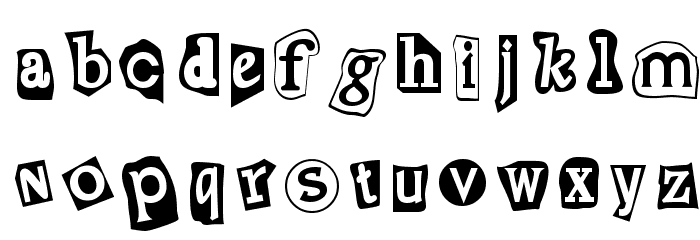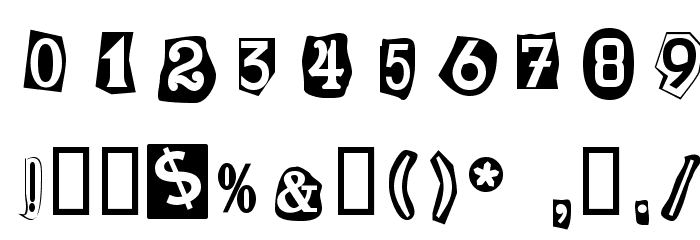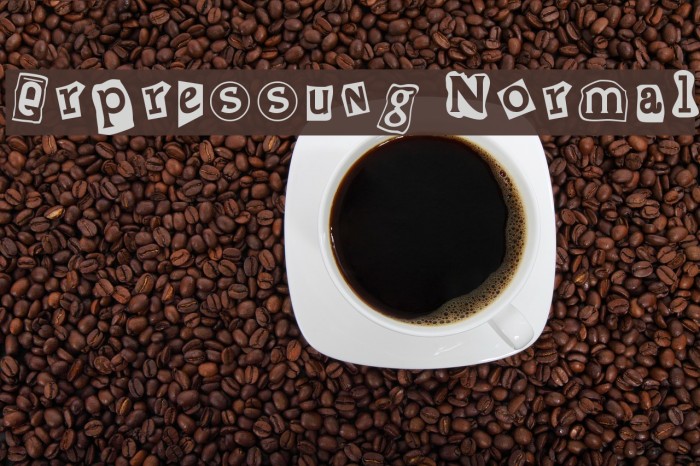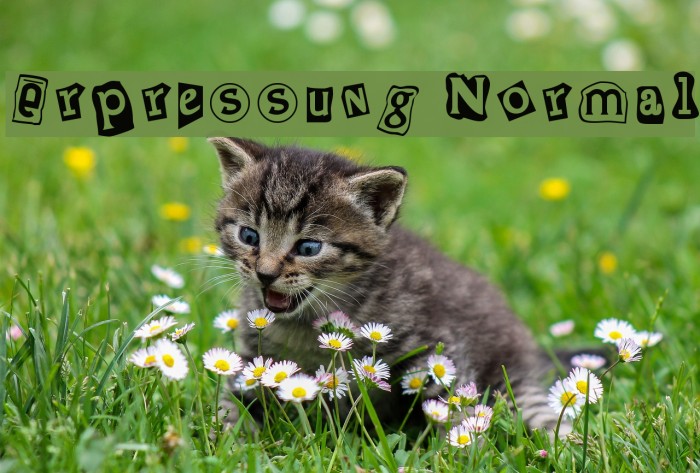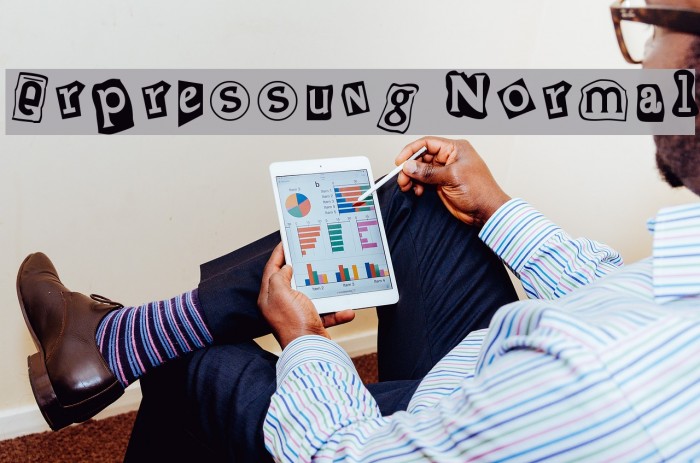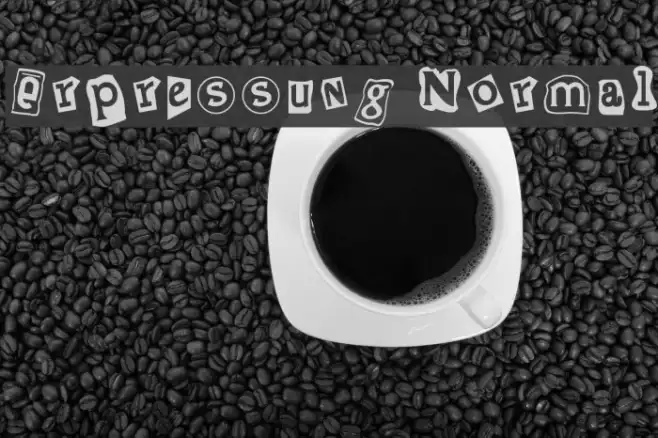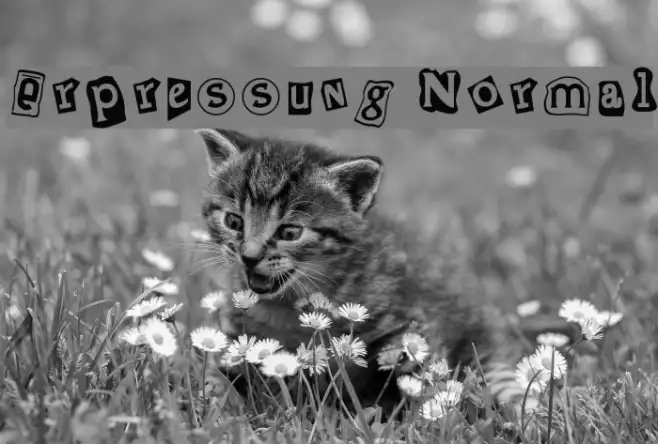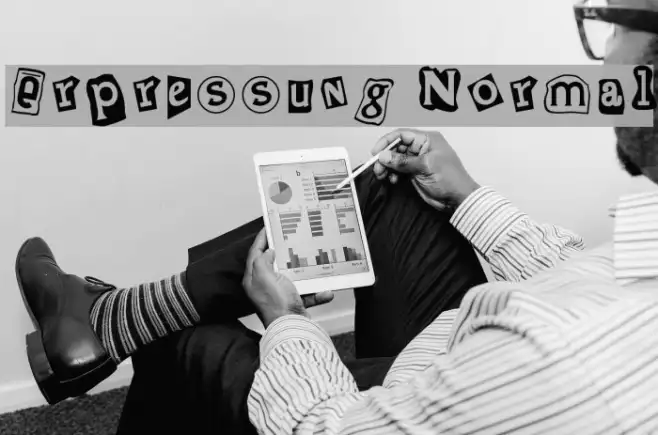
Erpressung Normal Font
This font features a playful and eclectic style, reminiscent of cut-out letters from magazines or newspapers. Each character appears to be individually crafted with varying shapes and sizes, creating a sense of randomness and spontaneity. The letters are bold and have a strong presence, with some characters featuring unique embellishments or distortions. This design choice gives the font a dynamic and eye-catching appearance, making it suitable for creative and unconventional projects. The overall look is both quirky and artistic, with a hint of rebellion and nonconformity.
A playful, eclectic font with a cut-out, ransom note style.
- Proposed Projects: Ideal for creative projects such as posters, album covers, or any design requiring a bold, unconventional look.